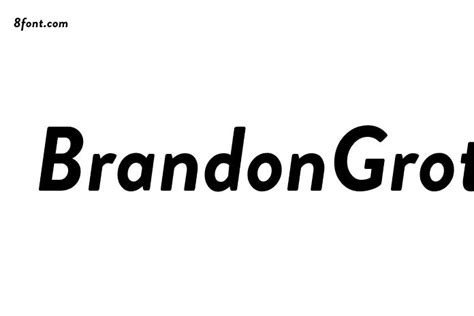
Brandon Grotesque Bold: Free Font Guide
Hey guys! So, you’re on the hunt for the Brandon Grotesque Bold font, and maybe even looking for a way to get your hands on it for free, right? You’ve come to the right place! Today, we’re diving deep into the world of this super popular typeface. It’s a font that’s been making waves in the design world for ages, and for good reason. Its clean lines, modern feel, and oh-so-versatile nature make it a go-to for designers across the board. Whether you’re crafting a slick brand identity, designing a killer website, or just spicing up a presentation, Brandon Grotesque has got your back. It’s one of those fonts that just works , no matter the context. We’re going to break down what makes this font so special, explore its various weights and styles, and importantly, talk about where you can legally and safely access it, including whether the bold version is really free to grab. Stick around, because by the end of this, you’ll be a Brandon Grotesque expert, ready to add this gem to your design arsenal. We’ll cover its history, its design philosophy, and how to use it effectively. Plus, we’ll tackle the nitty-gritty of licensing, which is super important, guys, to make sure you’re not stepping on any legal toes. So, let’s get this font party started!
The Allure of Brandon Grotesque Bold: Why Designers Love It
Alright, let’s get real about why the Brandon Grotesque Bold font has become such a rockstar in the design community. First off, its geometric sans-serif foundation gives it a super clean, modern, and highly legible appearance. Think about it – those perfectly rounded ‘o’s, the sharp, confident terminals on letters like ’t’ and ‘l’, and the overall balanced feel. It’s designed to be seen, to be read, and to make an impact without shouting. The bold weight, in particular, brings a powerful presence. It’s not just a thicker version of the regular; it’s a carefully crafted step up that adds significant visual weight and authority. This makes it absolutely perfect for headlines, subheadings, call-to-action buttons, or any text that needs to grab immediate attention. Imagine a sleek magazine cover – that bold title? Chances are, it’s something with a similar feel, and Brandon Grotesque Bold often fits the bill. It conveys a sense of sophistication and professionalism, yet it’s approachable enough for a wide range of applications, from corporate branding to more creative endeavors. It strikes a beautiful balance between being distinctive and universally understandable. The sans-serif nature means it doesn’t have those little decorative flourishes (serifs) that you find on fonts like Times New Roman. This simplicity is its strength, allowing it to integrate seamlessly with other design elements without clashing. It’s like the perfect pair of jeans in your wardrobe – it just goes with everything! Its versatility is truly its superpower. Need to create a strong brand voice? Use the bold. Need to create a clean, readable body of text? Use its lighter counterparts. This family of fonts offers a comprehensive toolkit for any designer. The bold variant specifically offers that punch you need when you want your message to stand out, making it a critical asset for anyone looking to create visually compelling designs that communicate effectively. It’s a font that doesn’t just look good; it performs exceptionally well across various media, from print to digital screens. This is why it’s a staple in many designers’ collections, and why you’re probably seeing it everywhere once you start looking for it! The confidence it exudes is palpable, making it a reliable choice for projects that demand clarity and impact.
Understanding the Brandon Grotesque Family: Weights and Styles
Before we dive into the ‘free’ aspect, let’s get our heads around the whole Brandon Grotesque family. It’s not just one font; it’s a whole collection! Designed by Hannes von Döhren, this typeface family is known for its extensive range of weights and styles, which is a huge part of its appeal and usability. We’re talking about everything from ultra-light (Thin) to extra-bold (Black), and often, each of these weights comes in both regular and italic versions. So, you’ve got your Thin, Light, Regular, Medium, Bold, Black, and their corresponding italics. That’s a serious amount of typographic firepower! Now, when you mention Brandon Grotesque Bold , you’re referring to one specific, very strong weight within this family. It’s the one that carries a lot of visual punch, perfect for making statements. But the beauty of the entire family is that you can create fantastic typographic hierarchies. You can use the lighter weights for smaller, more detailed text, and then BAM! Hit ‘em with the bold for headlines or key phrases. This contrast creates visual interest and guides the reader’s eye effectively. The consistency across all these weights and styles is what makes it so professional. Each one feels like it belongs, maintaining that core geometric sans-serif essence that defines Brandon Grotesque. The italic versions add a touch of dynamism, perfect for emphasis or a more expressive tone. So, when designers talk about Brandon Grotesque, they’re often thinking about the flexibility this whole system provides. It allows for nuanced design solutions, where you can fine-tune the visual weight and tone of your text precisely. Understanding this breadth is key, because often, the licensing for the entire family or specific weights might differ. While the bold is what you’re after for impact, knowing about the other members of the family helps appreciate its full potential and guides you in how you might use it within a larger design context. It’s this comprehensive nature that makes it a designer’s dream – a single, cohesive family that can handle a vast array of typographic needs with elegance and strength. You can create a whole brand language just using different members of the Brandon Grotesque family, ensuring visual consistency across all touchpoints.
• Montserrat: This is a hugely popular Google Font, completely free for commercial and personal use. It has a very similar geometric structure and a wide range of weights, including a bold one that packs a punch. It’s a fantastic all-around alternative.
• Poppins: Another stellar Google Font, Poppins offers a clean, modern geometric aesthetic. It’s highly versatile and comes in many weights, making it easy to find a bold version that works for headlines.
• Raleway: While Raleway has a bit more character and some unique letterforms (like the ‘W’), its overall structure is clean and geometric. It’s available on Google Fonts and is free for all uses.
• Lato: Known for its friendly yet stable feel, Lato is another great option. It’s semi-rounded, giving it a warm appearance, and it’s available in a comprehensive set of weights on Google Fonts.
These alternatives offer a similar aesthetic to Brandon Grotesque, providing you with excellent typographic options without the licensing cost for personal or even commercial projects. Always explore the Google Fonts library – it’s a treasure trove of high-quality, free typefaces!
Tips for Using Brandon Grotesque Bold Effectively
Alright, you’ve either got the Brandon Grotesque Bold font or you’re rocking one of its awesome free alternatives. Now, how do you make sure it looks amazing in your designs? Using a bold font like this effectively is all about understanding its power and using it strategically. The most common and impactful use for Brandon Grotesque Bold is, without a doubt, for headlines and titles . Its strong presence commands attention, making sure your key message doesn’t get lost. Think big, bold, and centered – or use it for impactful subheadings that break up longer text. Don’t overdo it , though! That’s rule number one with any bold font. If you use bold everywhere, it loses its impact and can make your design look cluttered and aggressive. Use it sparingly for maximum effect. Pair it with lighter weights from the same font family (if you have them) or a complementary sans-serif for body text. For instance, you could use Brandon Grotesque Bold for your main title, Brandon Grotesque Regular for subheadings, and maybe a different, highly legible font for the body copy. This creates a beautiful typographic hierarchy, guiding the reader through your content. Consider the context . Is your design aiming for a sophisticated, modern, and clean look? Brandon Grotesque Bold is perfect. Need something friendly and approachable? Maybe pair it with softer design elements. Its geometric nature lends itself well to minimalist and contemporary aesthetics. Spacing is key . Pay attention to kerning (the space between individual letters) and leading (the space between lines of text), especially with bold fonts. Bold weights can sometimes feel a bit cramped, so adjusting these can make a huge difference in readability and overall polish. Many design programs allow you to fine-tune this. Use it for contrast . The boldness of this font provides a strong visual contrast against lighter elements in your design, whether that’s background colors, images, or lighter text. Leverage this contrast to draw the eye to important information. Finally, test it out . See how it looks at different sizes and on different mediums (print vs. screen). What works perfectly for a website banner might need slight adjustments for a business card. Mastering Brandon Grotesque Bold is about understanding its strengths – its impact, clarity, and modern appeal – and applying them thoughtfully. It’s a powerful tool when used wisely, guys!
Conclusion: Embracing the Boldness of Brandon Grotesque
So there you have it, folks! We’ve journeyed through the impressive world of the Brandon Grotesque Bold font. We’ve talked about why it’s a beloved choice for designers, delving into its clean geometric design and the sheer impact its bold weight delivers. We’ve explored the extensive Brandon Grotesque family, highlighting how the bold variant fits into the larger picture of typographic flexibility. Most importantly, we’ve tackled the licensing question head-on: while the official, commercial license for Brandon Grotesque Bold typically requires purchase, understanding this is crucial for ethical and legal design practices. We’ve also armed you with the knowledge of where to legally acquire it and provided some fantastic free alternatives like Montserrat and Poppins if budget is a concern. Remember, guys, using fonts effectively is about more than just picking a pretty face; it’s about understanding their purpose, their licensing, and how they best serve your message. Whether you choose to invest in the genuine Brandon Grotesque Bold for your professional projects or opt for a brilliant free alternative, the key is to use it with intention. Apply those tips we discussed – use it for headlines, pay attention to spacing, and leverage its contrast – and you’ll be well on your way to creating stunning, impactful designs. Don’t forget to always check those licenses, support the font creators when you can, and explore the wealth of free resources available. Happy designing, everyone! Stay bold!